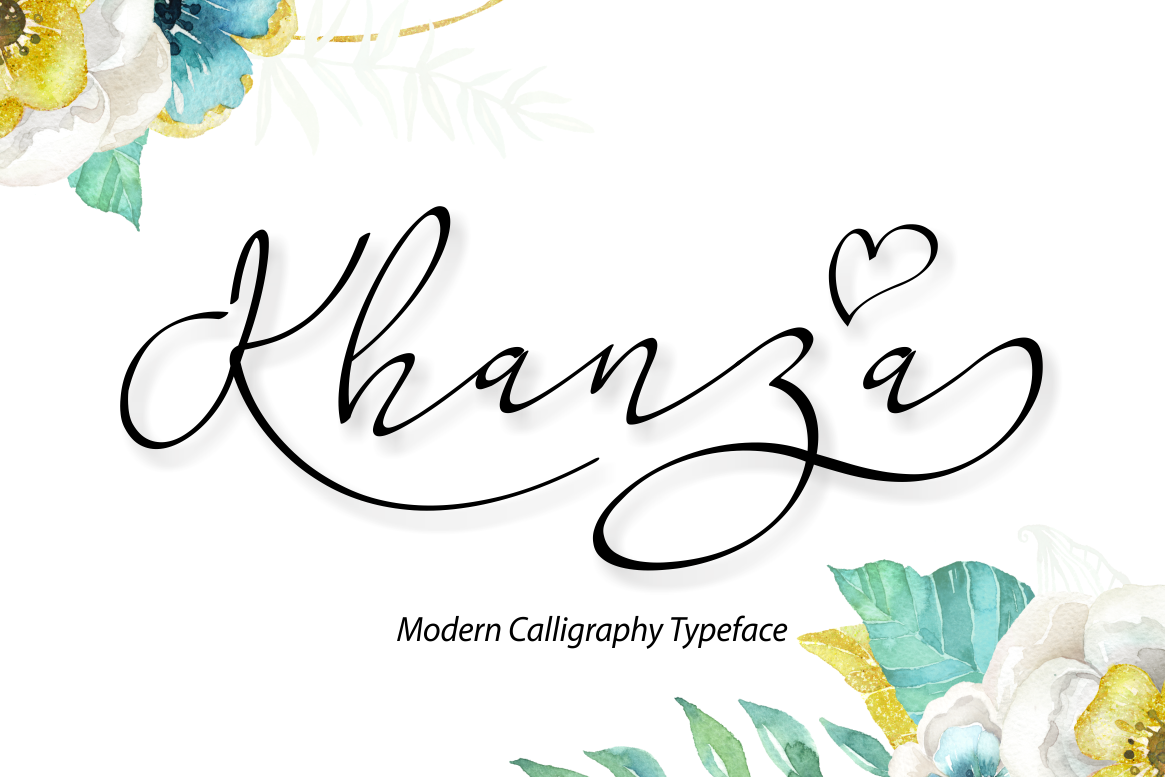
Khanza Script
Khanza Script.
Khanza Script is a hand drawn typeface combined with a simply between glyphs and beautiful, can be used as the title, signature, logo, correspondence, wedding invitations, letterhead, signage, labels, newsletters, posters, badges, etc.